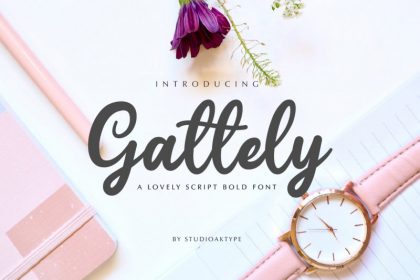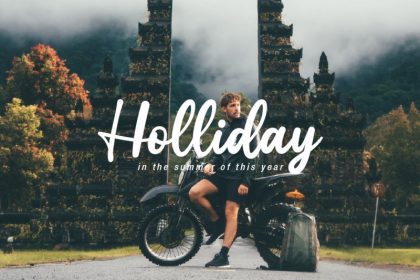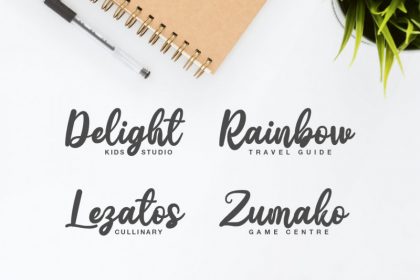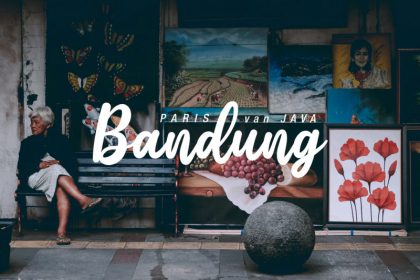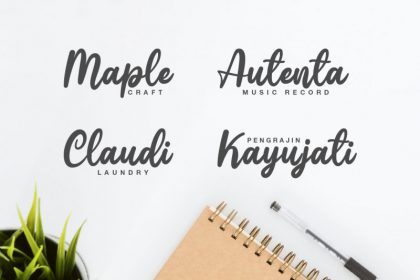
Gattely Script Font
hi! introduce our new Script Bold Font
He was named Gattely
Gattely is a lovely script bold font with natural shades, this will give a touch of beautiful flow to any design idea! it is perfect for designing your own brand and for other designs, these letters look perfect on all printing techniques, foil emboss, embroidery, and others.
Gattely has a full set of
– Uppercase
– Lowercase
– Numbers, Punctuation & Multilingual Symbols